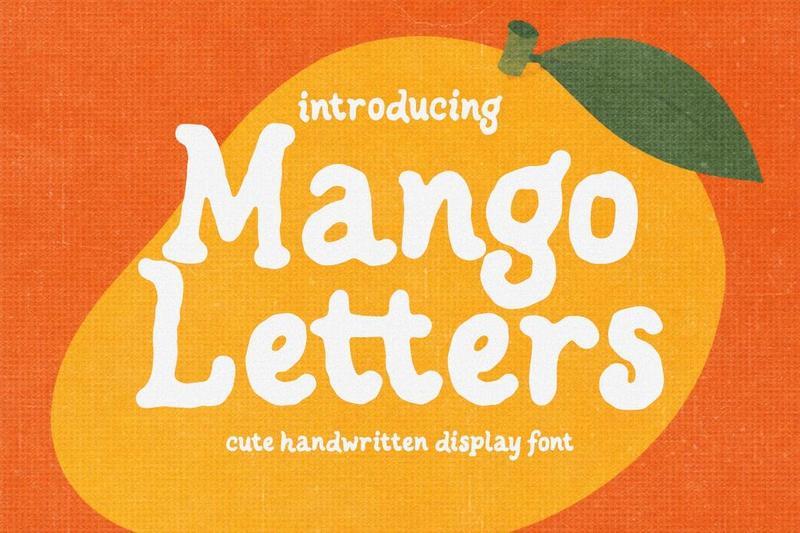
Mango Letters XPFF5EV
Mango Letters is a natural organic handwritten font. It features fluid strokes and a cute, whimsical personality, making it a great choice for branding, lifestyle content, and handmade labels.